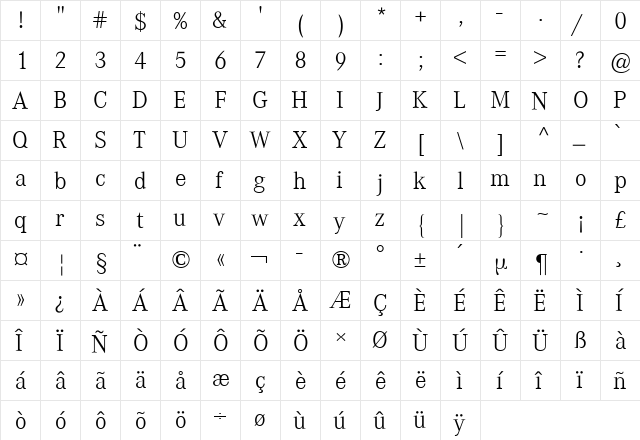
Corporate A BQ Light
Design Context for Corporate A BQ Typeface
Corporate A BQ takes a measured approach to typography — its balanced proportions and neutral character make it a reliable workhorse for both digital and print work. Its slender proportions lend an understated elegance to any composition.